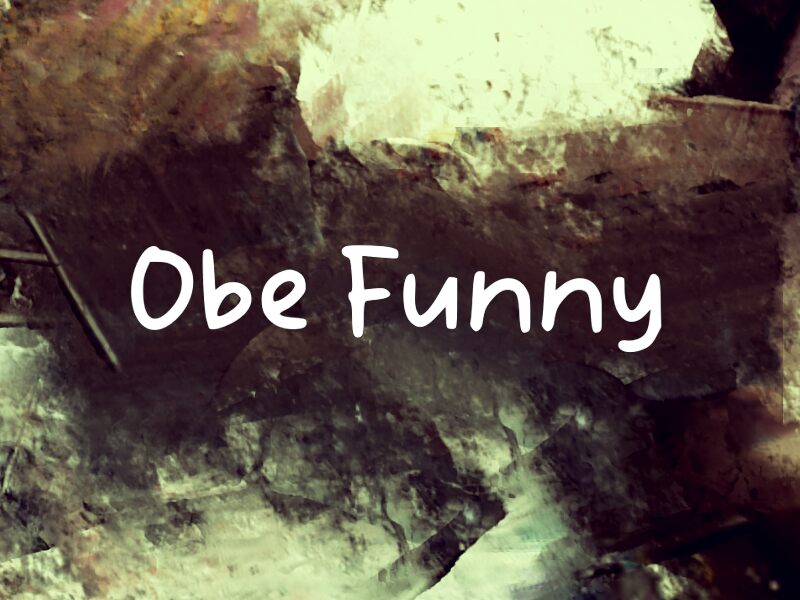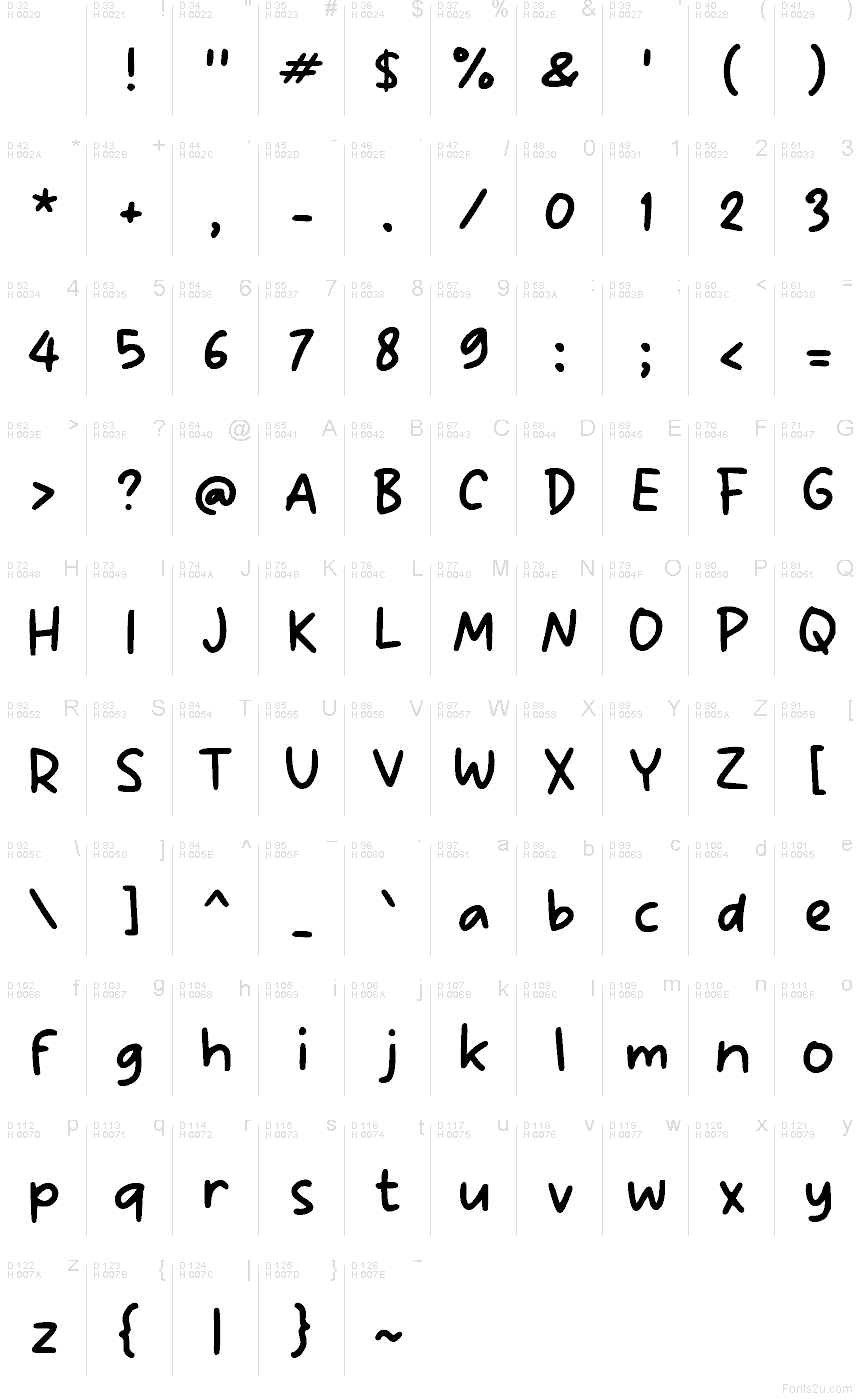
Obe Funny
Obe Funny font by wep is a free handwritten typeface with a loose, bouncy energy that feels like it was scribbled with a thick marker on glossy paper. The letters wobble just enough to feel playful and human, with rounded shapes and inky strokes that keep the text light and friendly rather than messy. It’s casual, readable, and packed with personality, making even short words feel like a little doodle.
Using Obe Funny, your titles and captions instantly take on a chatty, approachable voice that works beautifully for kids’ materials, comic-style graphics, party invitations, teacher resources, fun social posts, and informal product packaging. This free font shines at larger sizes where its uneven rhythm and chunky curves can really show. Pair it with a clean sans serif for body text to keep layouts clear while letting Obe Funny handle the smiles.